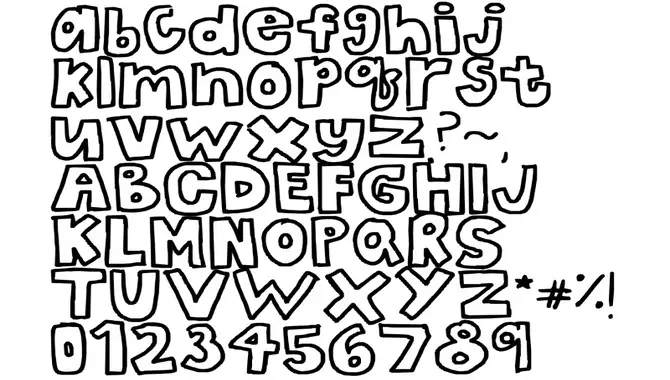
Bubble letter font is a decorative style of writing where each letter appears as rounded, bubble-like shapes. It is commonly used in artistic and creative contexts like children’s designs or graffiti, adding a playful and visually appealing touch to text.
Bubble Letter Font Variations
Experiment with different styles, colors, and sizes to create eye-catching headings, logos, or text effects. Enhance your designs or give your Word documents a playful and unique look with bubble letter fonts.
Is There A Font That Looks Like Bubble Letters?
5.What Are The Advantages Of Using This Font For Word?
Ans: Bubble letter fonts offer the advantage of making your text eye-catching and attention-grabbing. They add a playful and fun touch to designs or documents, making them versatile for purposes like posters, invitations, or social media graphics. With their unique and artistic appearance, bubble letter fonts make your text visually appealing.